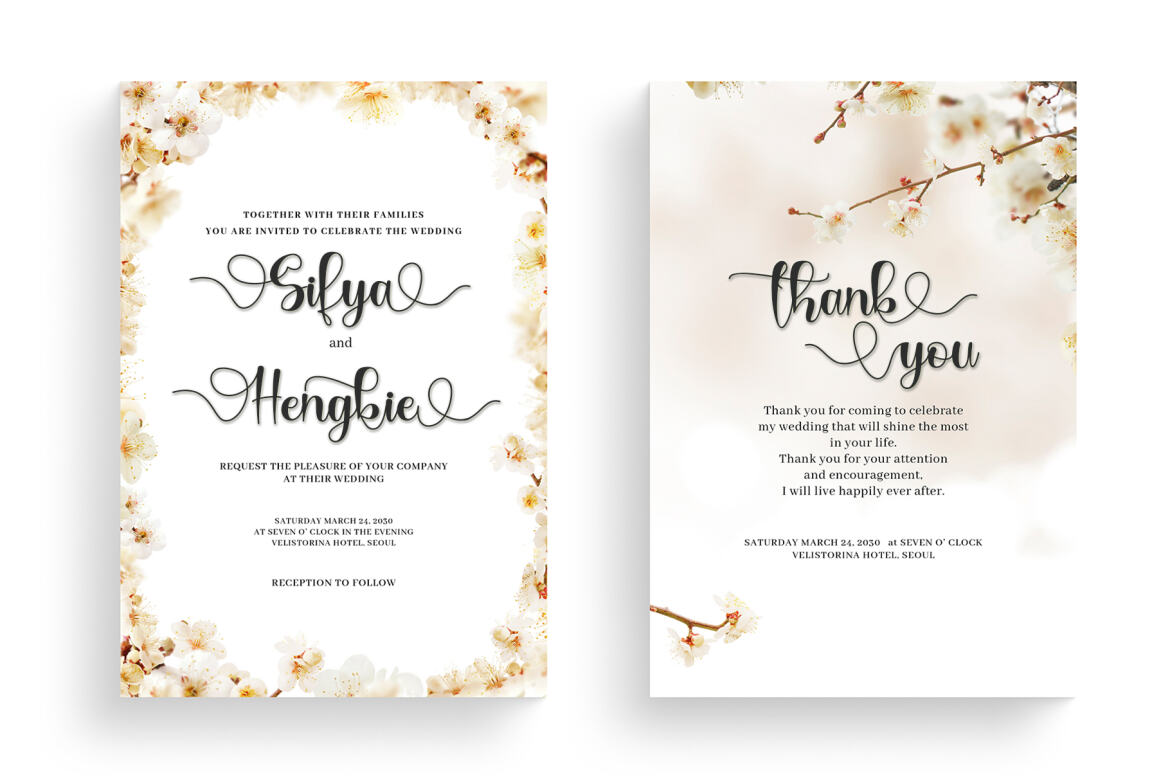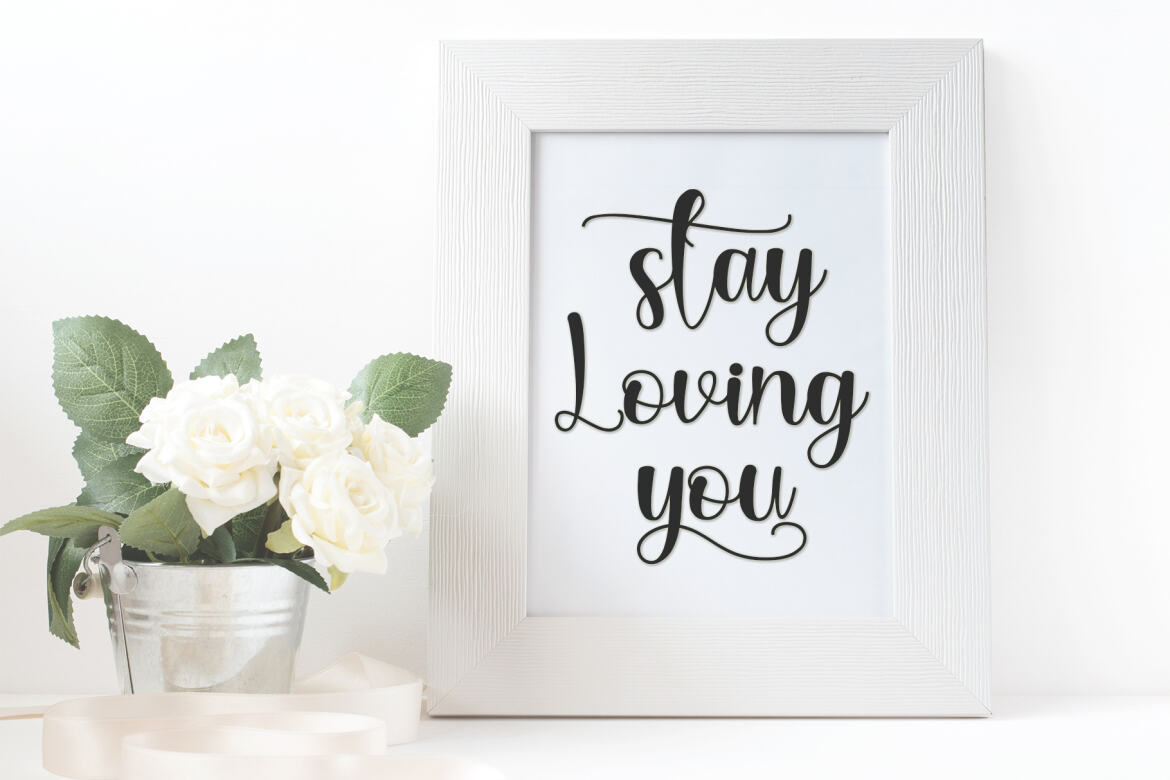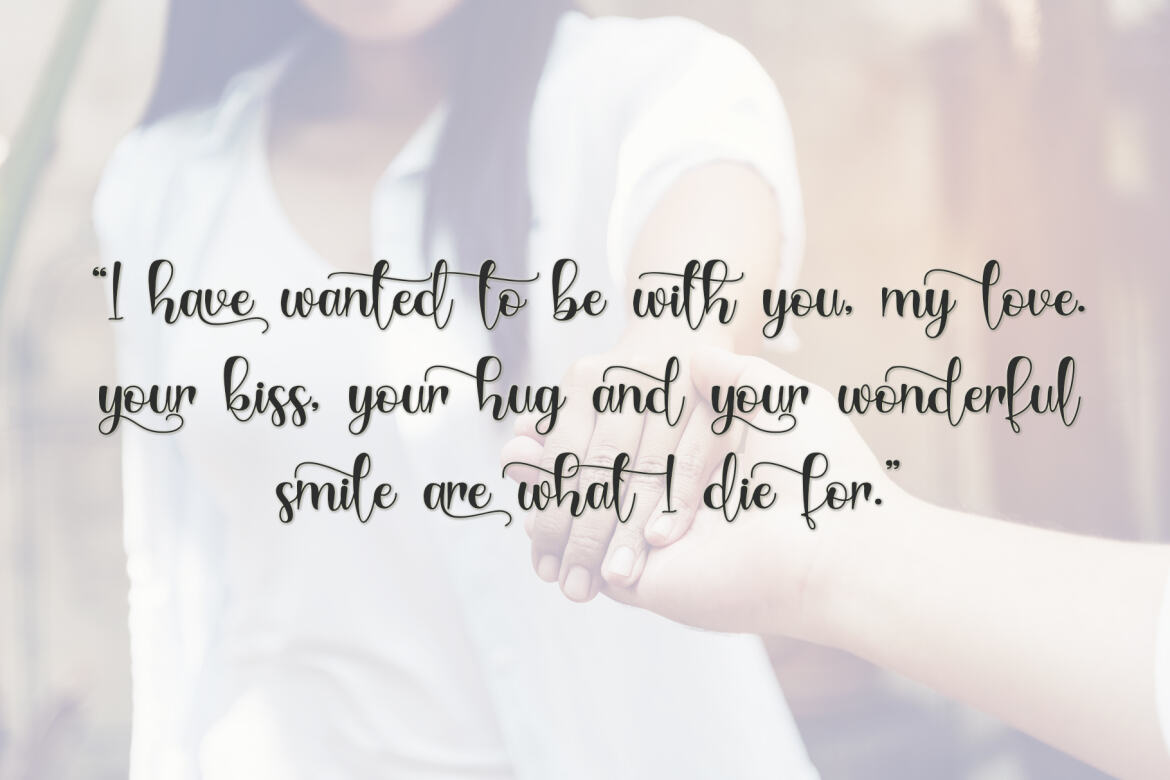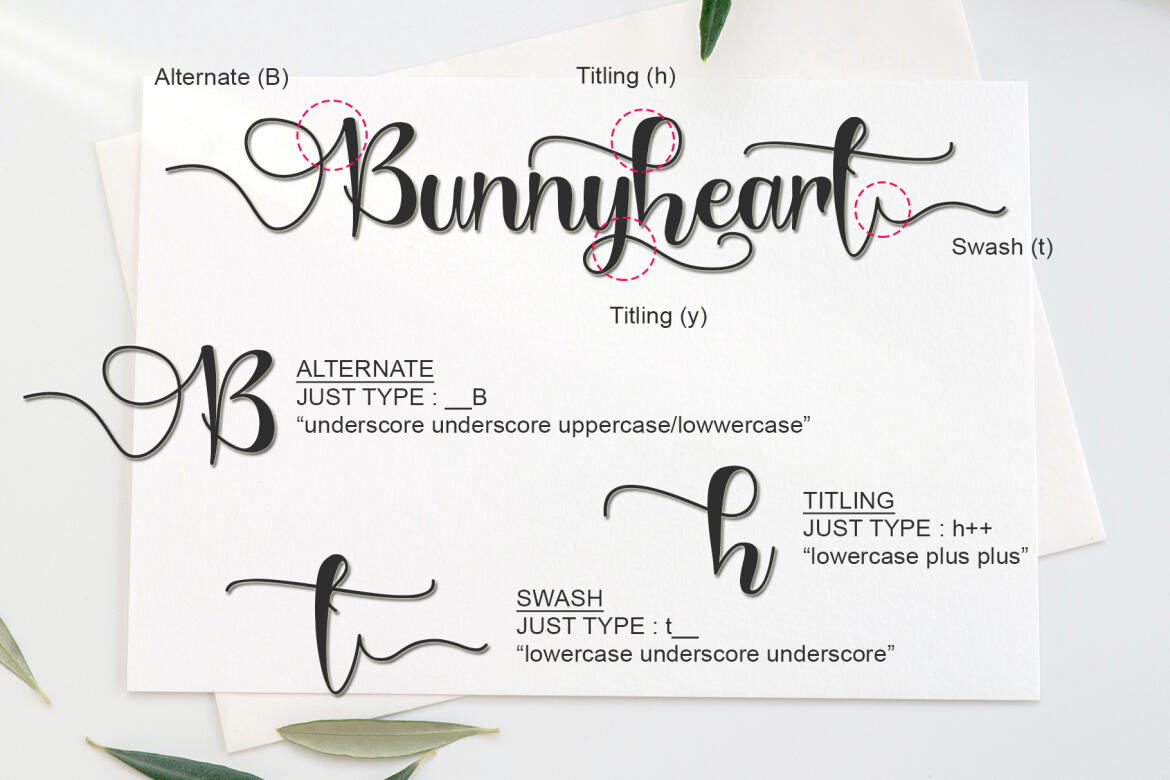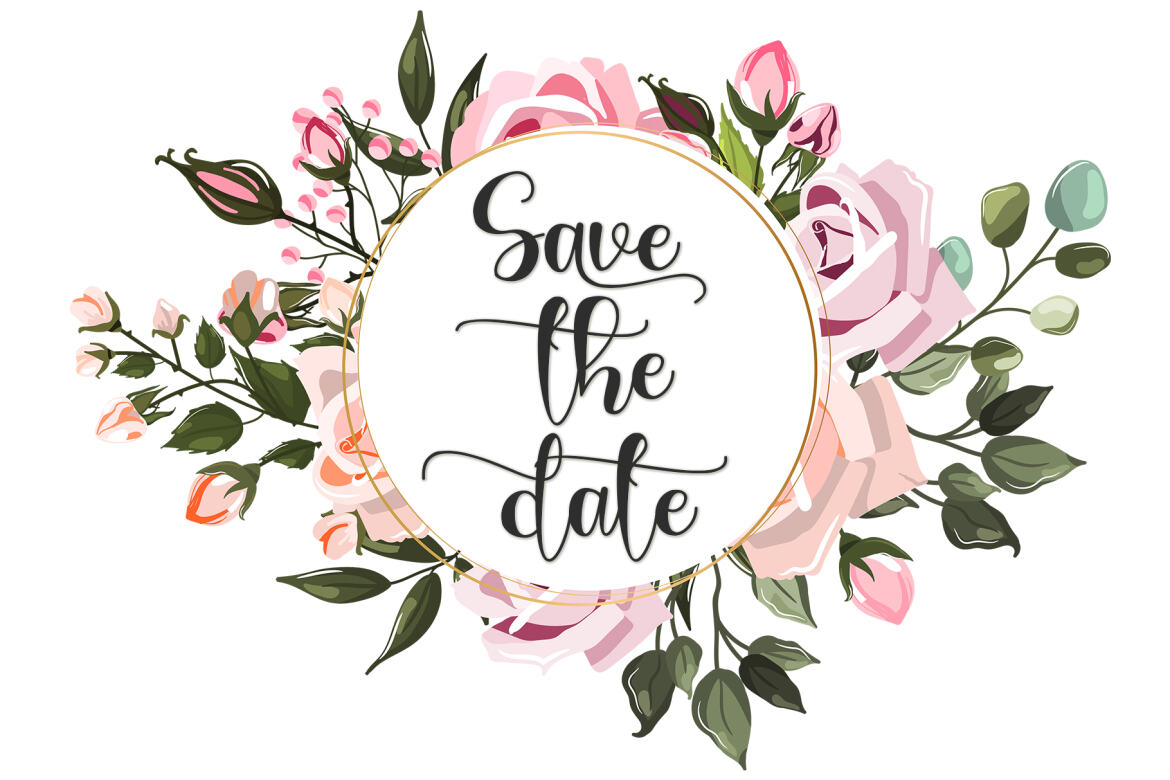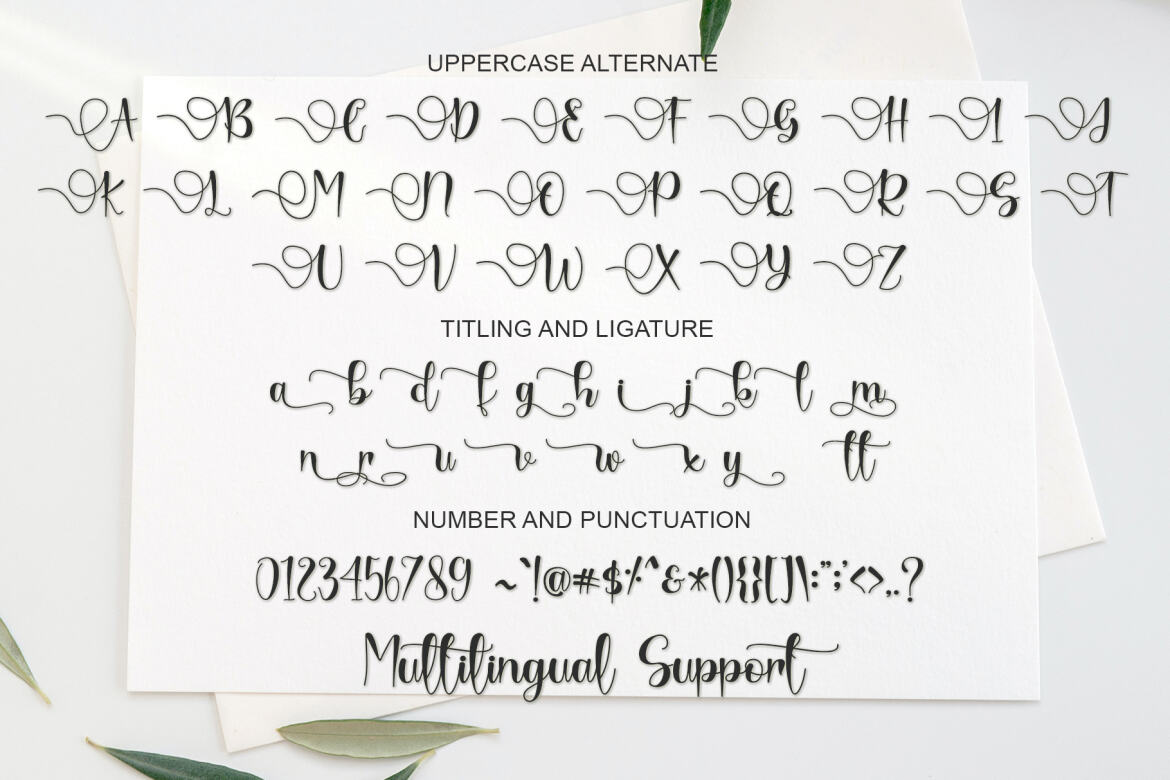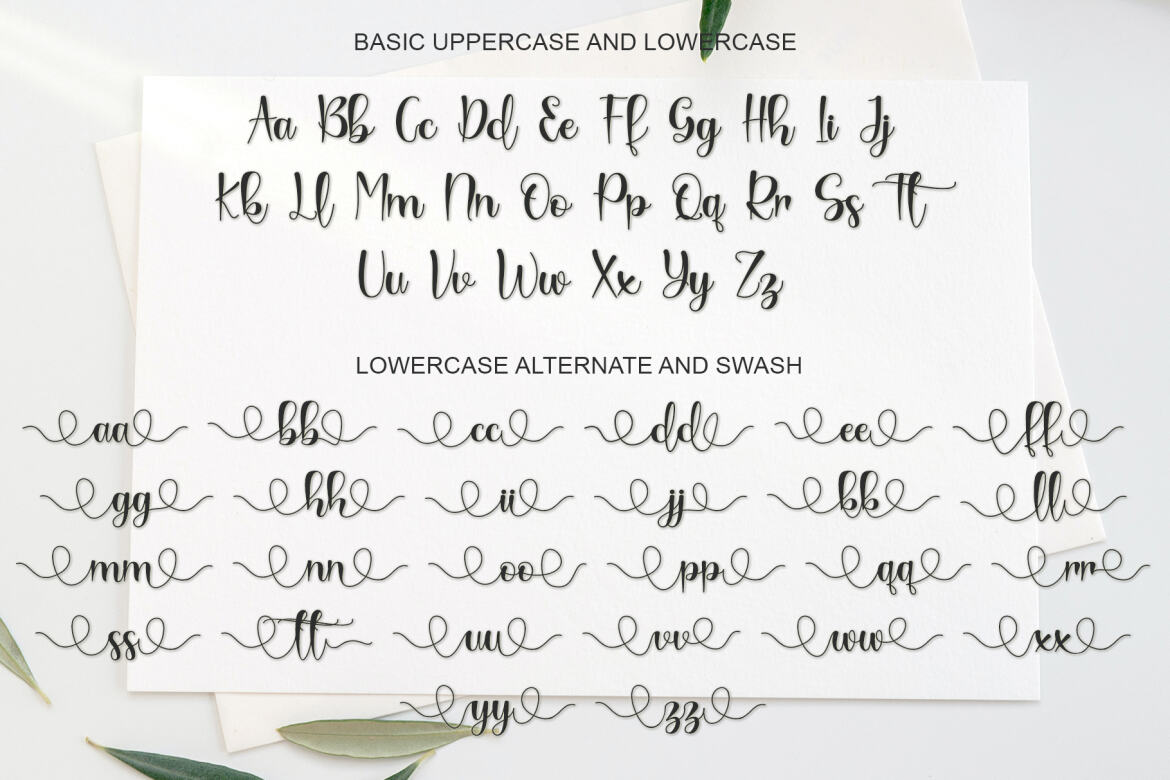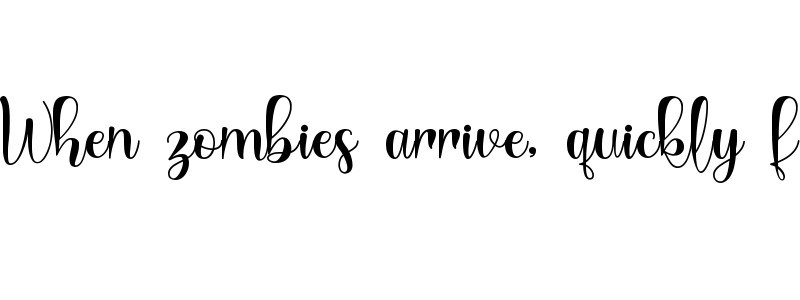
Bunnyheart
Bunnyheart is an incredibly unique handwritten font. Whether you’re using it for crafting, digital designing, presentations, or greeting card making, it’s perfect!
Fall in love with its incredibly versatile style and use it to create spectacular designs!
This font is PUA encoded which means you can access all of the glyphs and swashes with ease!